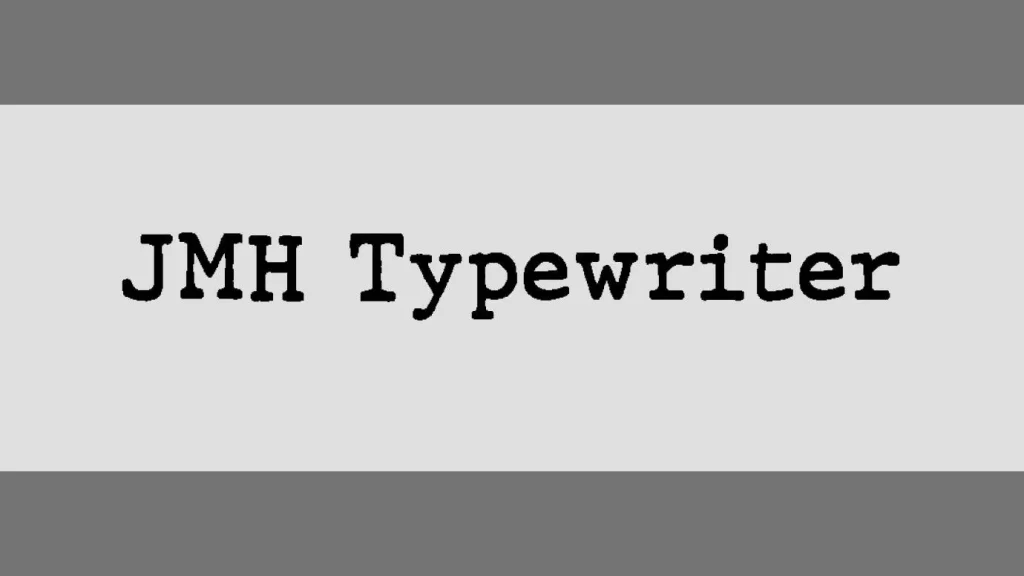
Jorge Morón created this nice and attractive. It has a sleek design that works well for a variety of tasks. JMH Typewriter Font has high-quality features and provides a range of characters it is a truly remarkable style.
This typeface can be used for projects involving branding and clothing design. This typeface is often used by many advertising companies. This typeface can also be used to create posters, t-shirts, logos, posters, and more.
For the design of the thumbnails and themes on various social media channels, you can use this font. This classy typeface can be used to produce invitation cards, wedding cards, gift cards, and greeting cards. This stunning typeface is used by many web designers to create websites.
Who is the creator of the JMH Typewriter Font?
Jorge Morón has designed this marvelous text style. The design of the characters is unique and eye-catching.
What kind of JMH Typewriter typeface?
The typeface has a place in the category of the fancy typeface. This typeface can be used to create posters, t-shirts, logos, posters, and more.